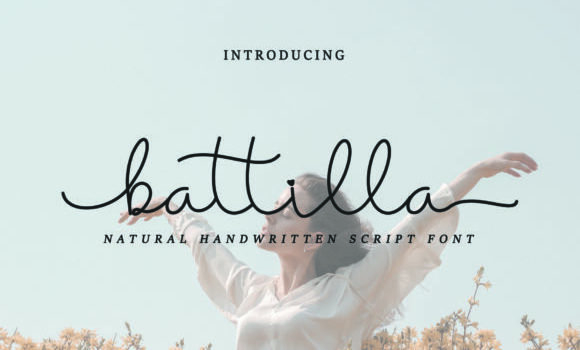
battilla
Battilla Font – Free Download Introduction to Battilla Font Battilla is a delicate, elegant and flowing handwritten font. 📸 Preview Gallery 6 images 📌 Product Name Battilla Font 👤 Author tinyhandletter 📂 Category Explore ⬇️ Download Battilla Font FREE Free